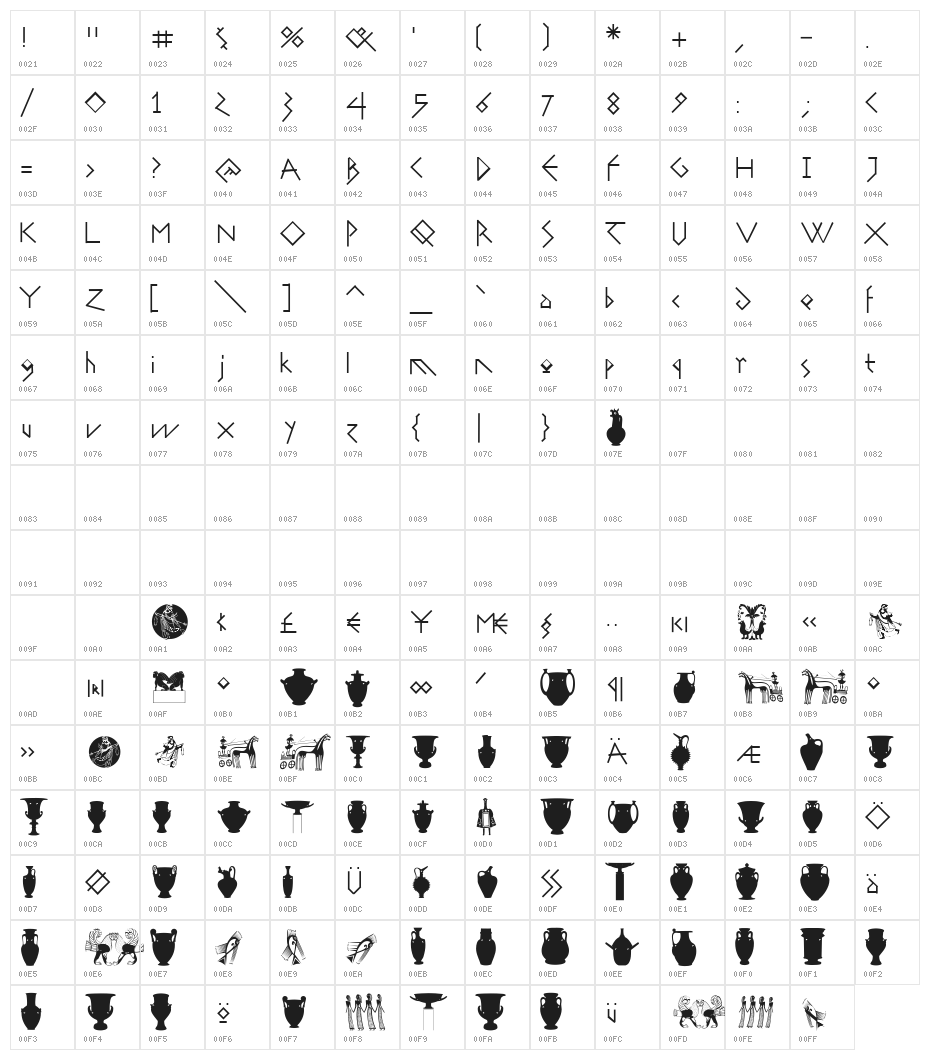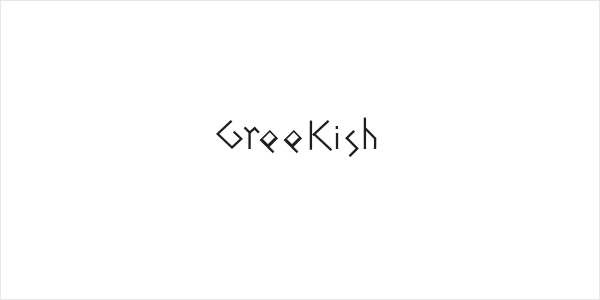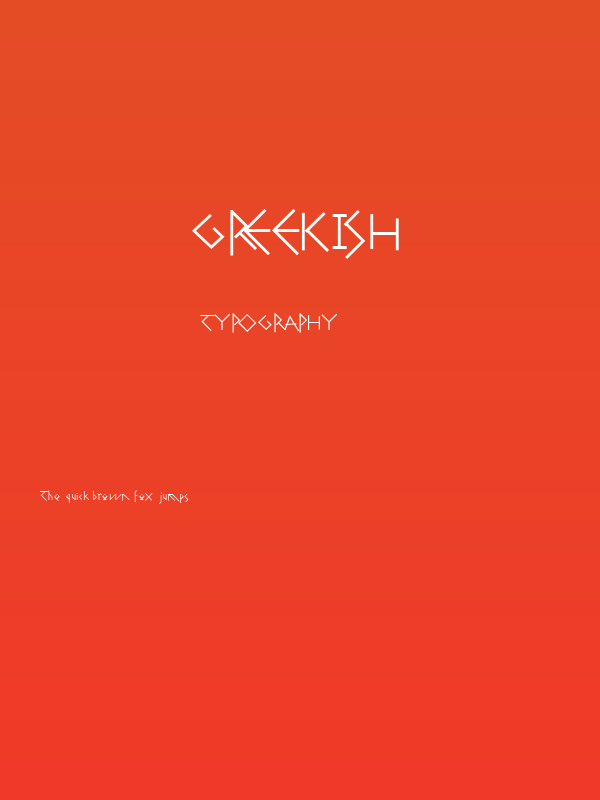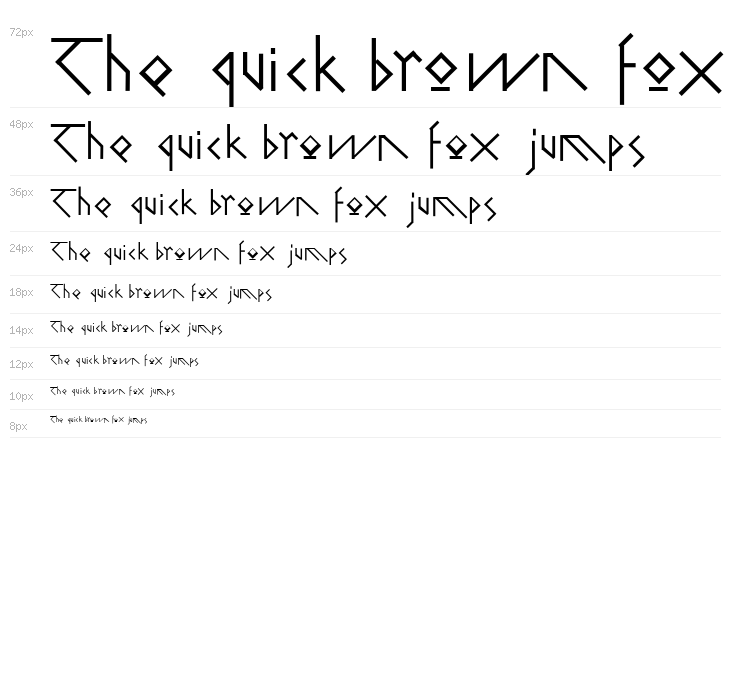
GreeKish Font
GreeKish Description
This font features a unique blend of geometric shapes and angular lines, reminiscent of ancient scripts with a modern twist. The uppercase and lowercase letters maintain a consistent angular style, with sharp edges and a distinct lack of curves, giving it a futuristic and slightly aggressive appearance. The numerals and special characters follow the same design principles, ensuring uniformity across all glyphs. The font's design is both striking and legible, making it suitable for creative and bold applications. Its distinct style is perfect for projects that require a touch of the unconventional, while still maintaining clarity and readability.